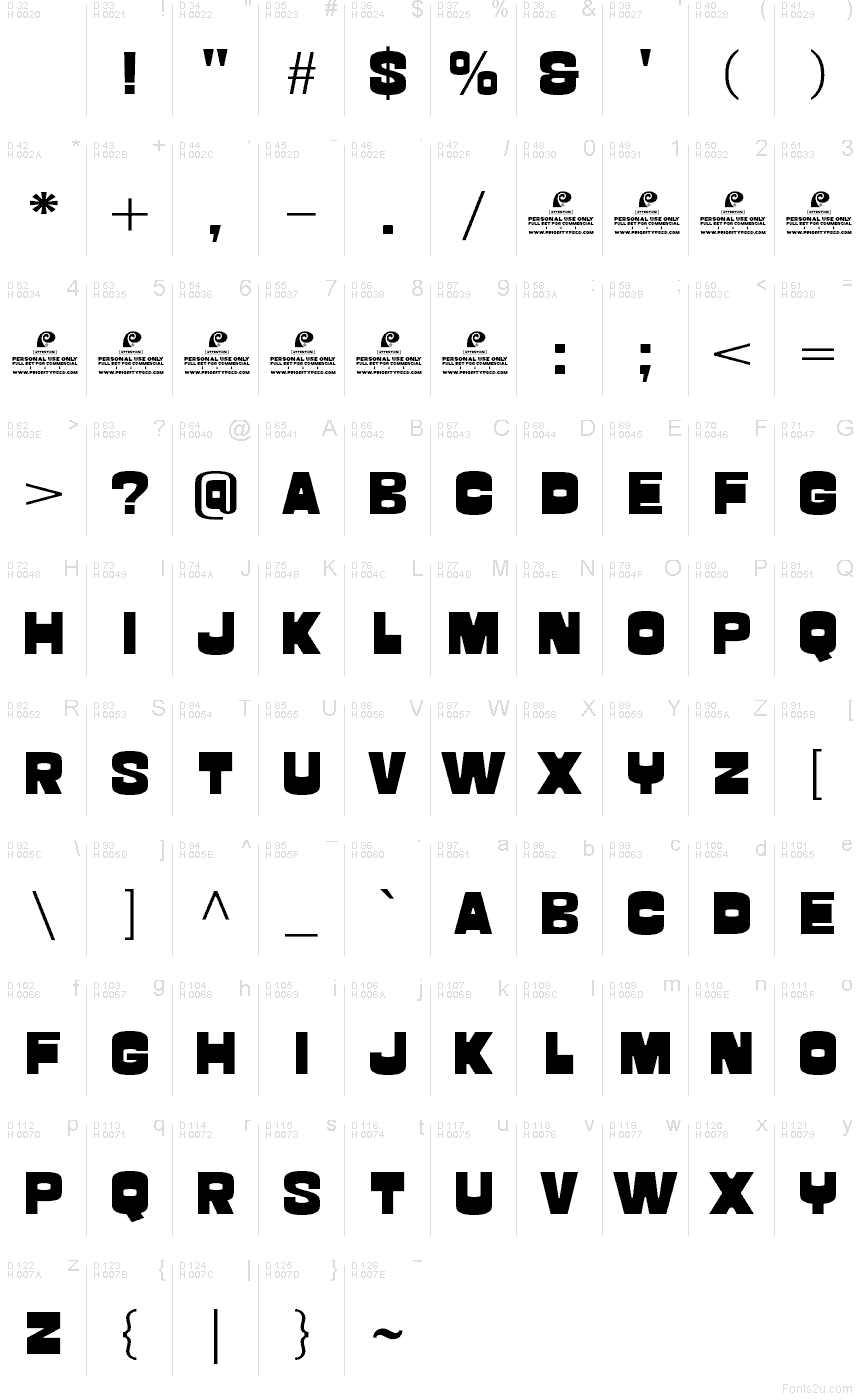
PC Merchis Expanded by Prioritype Co. is a free groovy display font with an ultra-wide, heavyweight silhouette. Its broad capitals use blunt curves, tight joins, and small rectangular openings, producing lettering that feels both playful and forceful.
Sports merchandise is its clearest setting. Oversized team names and arena graphics benefit from the dense, upbeat sweep, which also suits festival posters, streetwear branding, and music packaging. In those settings, the letters can become a banner-like graphic element rather than ordinary labeling.